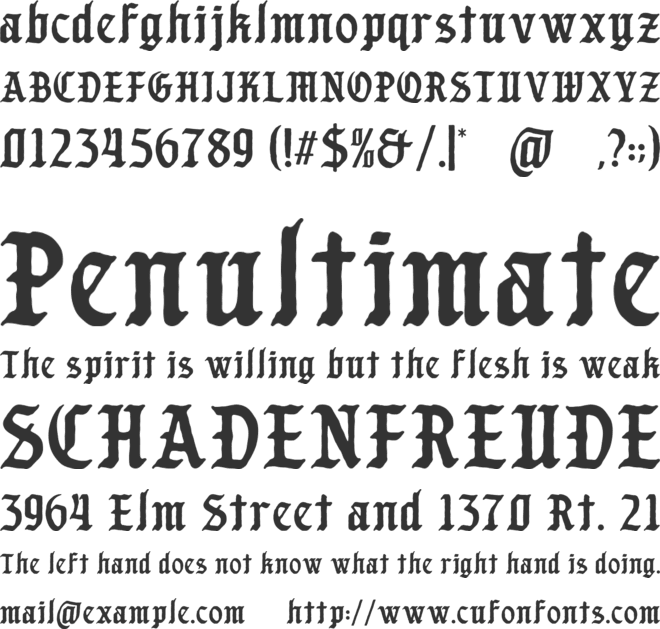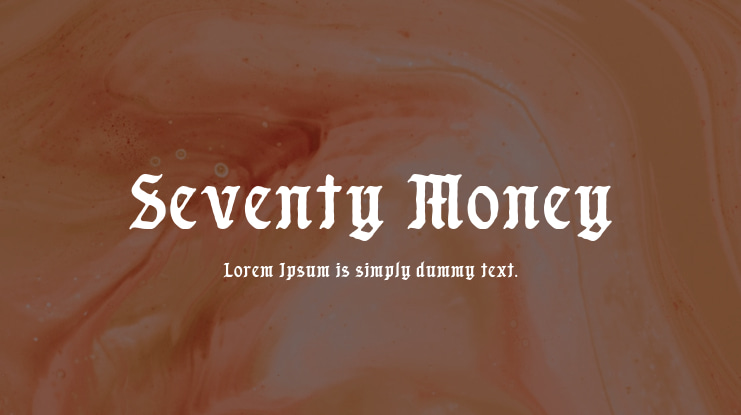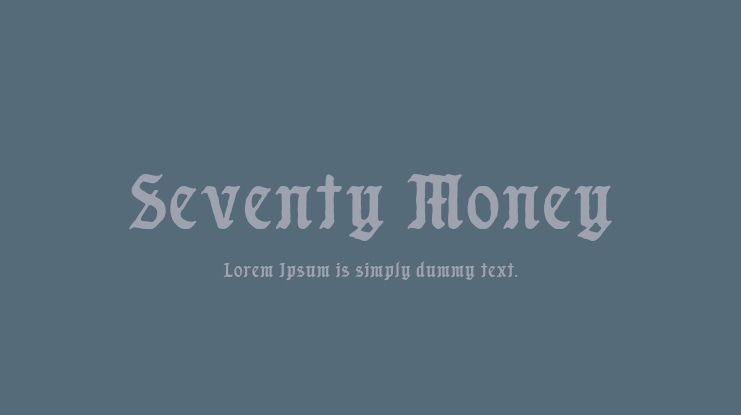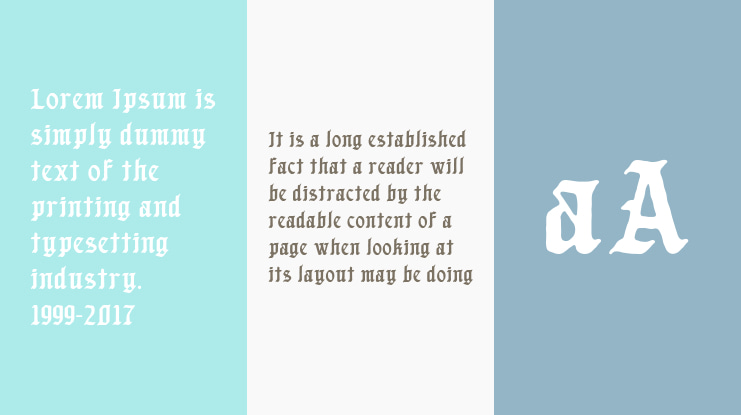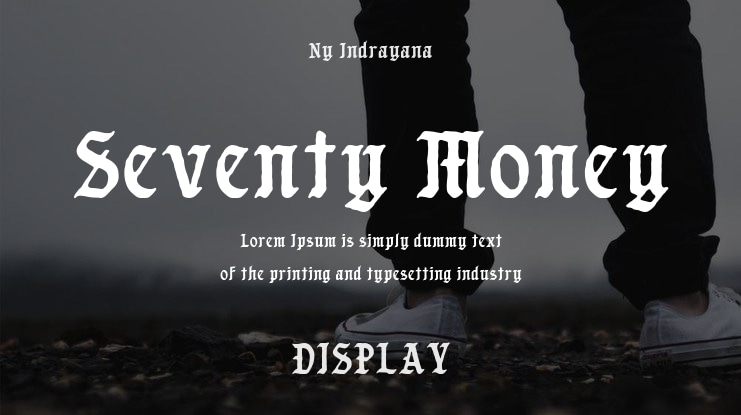
Seventy Money Font
Ny Indrayana
The Seventy Money Typeface is a meticulously crafted blackletter font with a rough, vintage edge, perfect for projects that demand an impactful, antique feel. This font stands out with its distressed and weathered texture, giving each character the appearance of having aged through time, as if printed from worn-out woodblocks or metal type. Its intricate design captures the essence of medieval Gothic lettering, infused with a contemporary, gritty twist.